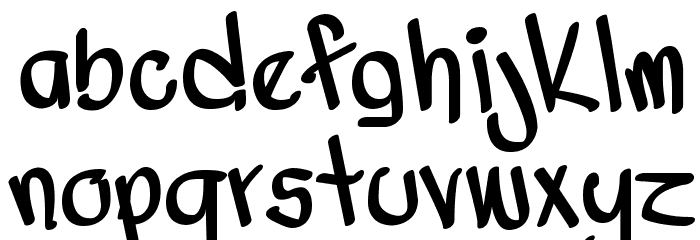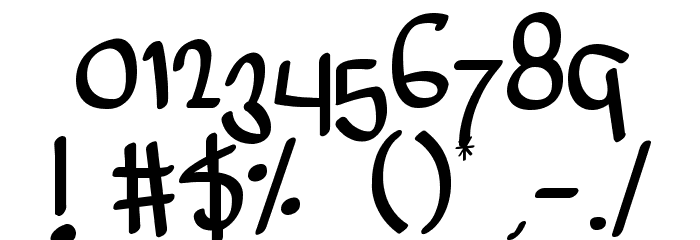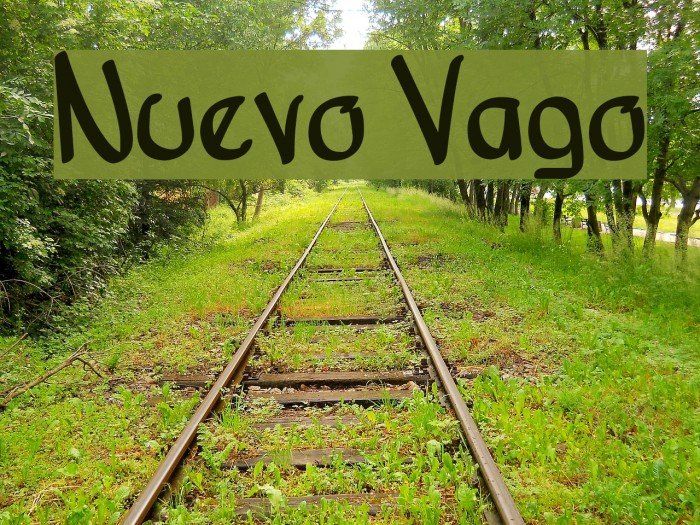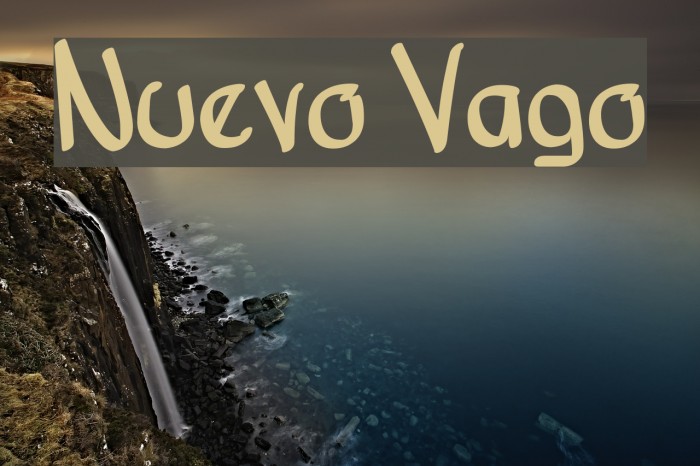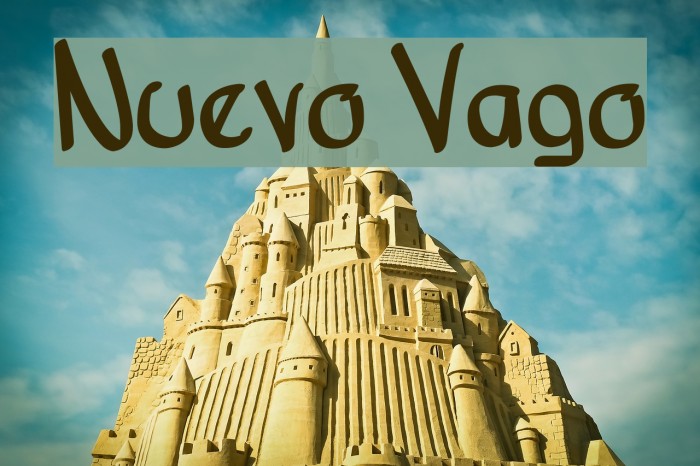
Nuevo Vago Font
This playful and energetic font features a handwritten style with bold, rounded strokes that convey a sense of fun and informality. The letters are slightly irregular, adding to the casual and approachable feel. The uppercase and lowercase characters maintain a consistent style, with a slight slant that enhances the dynamic appearance. The numerals and special characters are equally expressive, fitting seamlessly with the overall design. This font is perfect for projects that require a personal touch, such as invitations, greeting cards, or playful branding.
A bold, handwritten font with a playful and informal style.
- Proposed Projects: Ideal for invitations, greeting cards, playful branding, and children's books.
- Overall Style: Playful
- Use Case: Headlines, Logos, Informal Text